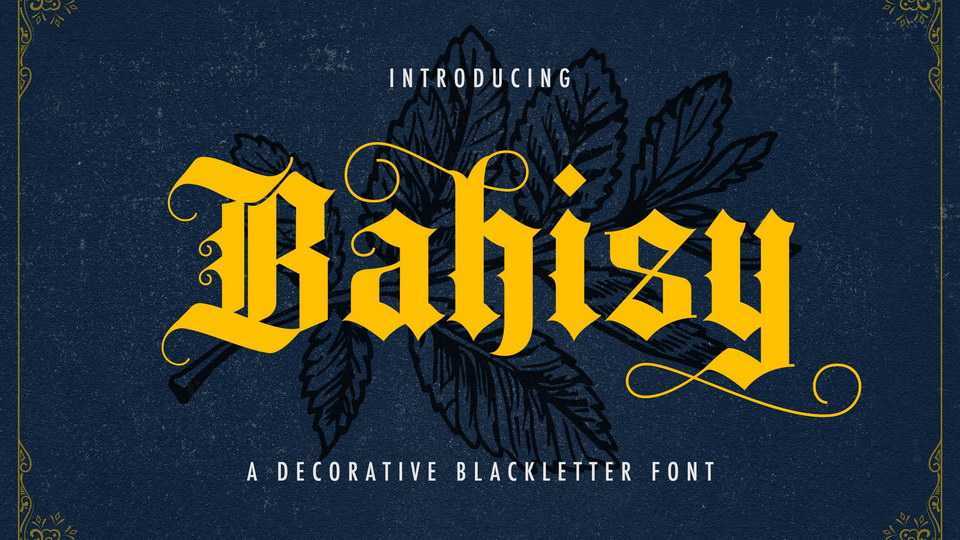
Download Bahisy font, an incredibly authentic and daring decorative blackletter typeface. Add Bahisy font to your favorite creative projects and notice how it makes them stand out.